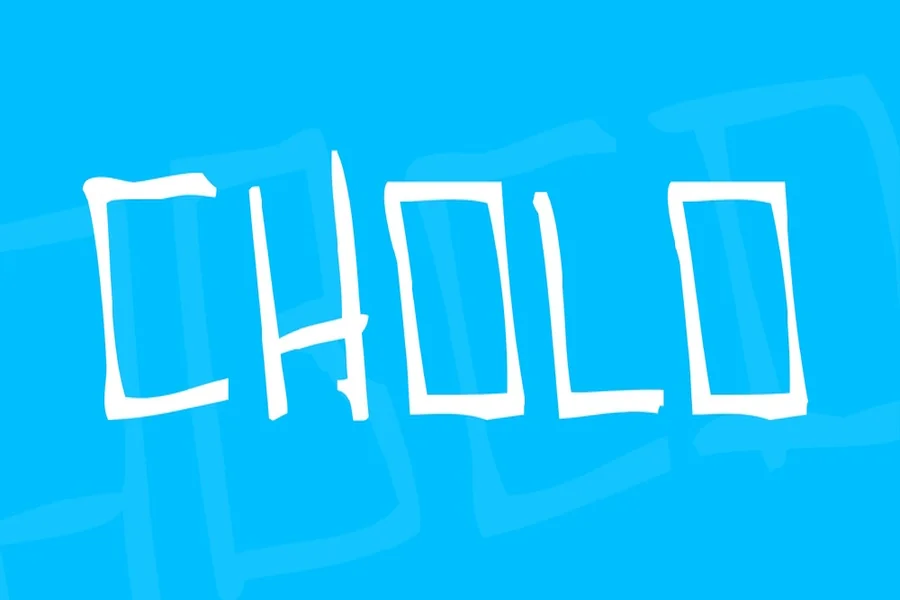
Cholo Font Style for Powerful Urban Visual Design
Cholo Font
The cholo font carries a powerful story. It speaks for culture pride and identity. When people see this style they feel strength confidence and belonging. The letters stand tall and bold. Each word feels like a statement. Typography is more than shapes. It reflects life and community. Cholo font comes from the streets. It was shaped by voices that wanted to be seen and heard. This makes the style emotional and real.
The thick strokes and sharp curves create strong presence. The spacing feels tight and focused. The design does not whisper. It declares. That is why cholo font has become a symbol of urban expression. Designers choose this font when they want to capture energy passion and pride.
The Origins and Cultural Roots of Cholo Font
Cholo font emerged from Latin street culture in the American Southwest. It grew from hand drawn lettering on walls notebooks and signs. Artists used markers and paint to express their names beliefs and stories.
Lowrider culture played a big role. Car clubs used this lettering on vehicles and banners. Each letter showed craftsmanship and identity. The style became deeply connected with pride and heritage. Music also helped shape cholo font. Hip hop and regional sounds carried the same bold voice. Album covers flyers and posters used the lettering to reflect community and lifestyle.
Over time these hand drawn forms were transformed into digital fonts. Designers kept the spirit alive while making it usable for modern projects. Cholo font today carries that same cultural heartbeat. It honors the past while shaping new creative expression.
Why Designers Choose Cholo Font
Designers choose cholo font because it has character. It does not feel generic. It feels personal and powerful. This font creates instant impact. It commands attention in logos posters clothing and social media. The message becomes unforgettable. Another reason is authenticity. Cholo font reflects real culture and lived experience. Audiences connect with that honesty.
It also supports strong branding. Streetwear music and lifestyle brands use cholo font to express identity and confidence. Designers love how this font brings emotion into visual communication. It transforms words into visual statements.
How Cholo Font Is Used in Modern Design
Cholo font appears across many creative fields. Streetwear brands use it for logos hoodies hats and graphics. The font becomes the face of the brand. Music artists use cholo font for album covers posters and merchandise. It reflects sound and spirit. Event promotions rely on this style for flyers banners and digital ads. It creates excitement and energy.
Digital creators use cholo font in video thumbnails social posts and website headers. It helps content stand out in busy feeds. Even custom art and tattoo designs use this font to express personal stories and pride. Wherever identity and culture matter cholo font finds its place.
The Future of Cholo Font in Creative Culture
The future of cholo font remains strong. As people seek authentic expression this style becomes more important.
New designers continue to explore the form. They blend traditional strokes with modern elements. This keeps the style evolving. Technology allows the font to move and animate. Motion design brings new life to these bold letters.
As street culture influences mainstream design cholo font will reach new audiences while staying true to its roots. It will continue to serve as a voice for identity creativity and community.
Final Thoughts on Cholo Font
Cholo font is more than typography. It is culture in written form. It carries pride history and expression.
When designers choose cholo font they choose boldness and truth. They choose connection and meaning.
In the world of design cholo font stands as a symbol of voice and strength. It tells stories that deserve to be seen and heard.